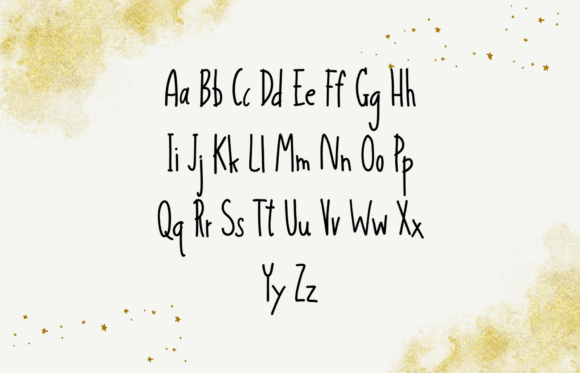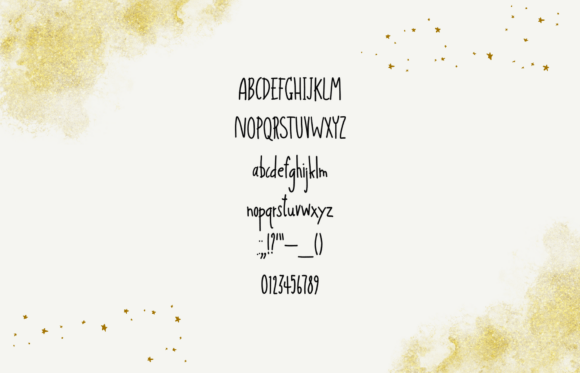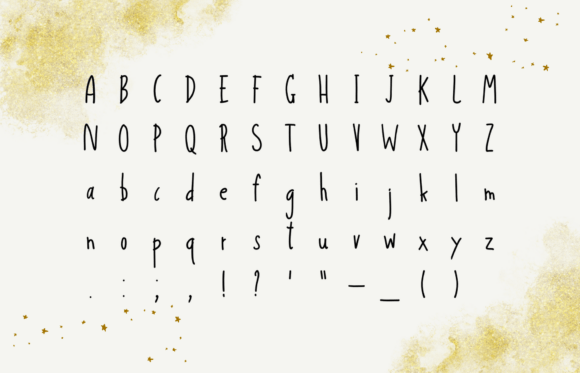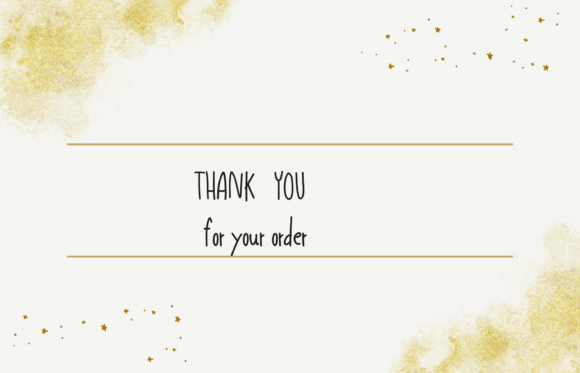
Introducing Blossom Font: The Sweet and Friendly Handwritten Display Font
Are you looking for a font that can add a touch of sweetness and friendliness to your designs? Look no further than Blossom Font! This adorable handwritten display font is perfect for crafts, digital design, presentations, and a wide range of creative projects. In this article, we’ll explore the features and benefits of Blossom Font, and show you how it can elevate your designs to the next level.
A Cute and Fun Font for Creative Projects
Blossom Font is a cute and fun font that’s ideal for adding a playful touch to your designs. Its sweet and friendly style makes it perfect for projects that require a personal and approachable feel. Whether you’re designing a wedding invitation, a greeting card, or a poster, Blossom Font is sure to bring a smile to your audience’s face.
One of the key features of Blossom Font is its versatility. It’s a highly adaptable font that can be used in a wide range of creative projects, from digital design to crafting. Here are some ideas for using Blossom Font:
- Crafts: Use Blossom Font to add a personal touch to your handmade crafts, such as scrapbooking, card making, and DIY gifts.
- Digital design: Add a playful touch to your digital designs, such as social media graphics, blog posts, and email newsletters.
- Presentations: Use Blossom Font to create engaging and interactive presentations for school or work.
- Wedding invitations: Make your wedding invitation stand out with the sweet and romantic style of Blossom Font.
- Cards: Create personalized greeting cards for birthdays, holidays, and special occasions.
Ideal for School and Education
Blossom Font is also an excellent choice for teachers and students looking to add some fun and creativity to their school projects. Whether you’re creating a classroom poster, a presentation, or a worksheet, Blossom Font can help make learning more engaging and enjoyable.
Here are some ideas for using Blossom Font in school:
- Classroom posters: Create eye-catching posters that showcase student work, classroom rules, or inspirational quotes.
- Presentations: Use Blossom Font to create interactive and engaging presentations for history, science, or language arts classes.
- Worksheets: Add a playful touch to your worksheets, quizzes, and tests with Blossom Font.
Perfect for Comic Books, Games, and Movie Titles
Blossom Font is not just limited to traditional design projects. Its playful and whimsical style also makes it perfect for comic books, games, and movie titles. Here are some ideas for using Blossom Font in these creative fields:
- Comic books: Use Blossom Font to create eye-catching titles, captions, and speech bubbles.
- Games: Add a playful touch to your game designs, such as character names, level titles, and menu screens.
- Movie titles: Create memorable and engaging movie titles that will stand out on the big screen.
Love Shirts and Posters
Blossom Font is also perfect for creating fun and stylish love shirts and posters. Whether you’re designing a Valentine’s Day gift or a romantic poster, Blossom Font can help you express your feelings in a sweet and playful way.
Here are some ideas for using Blossom Font on love shirts and posters:
- Valentine’s Day gifts: Create personalized love shirts, mugs, and cards with Blossom Font.
- Romantic posters: Design eye-catching posters that showcase your love and affection.
| Font Name | Blossom Font |
| Author | Beer Design |
In conclusion, Blossom Font is a sweet and friendly handwritten display font that’s perfect for a wide range of creative projects. Its cute and fun style makes it ideal for crafts, digital design, presentations, and school projects. Whether you’re a designer, crafter, or educator, Blossom Font can help you add a playful touch to your designs and bring a smile to your audience’s face. So why not give Blossom Font a try and see how it can elevate your designs to the next level?